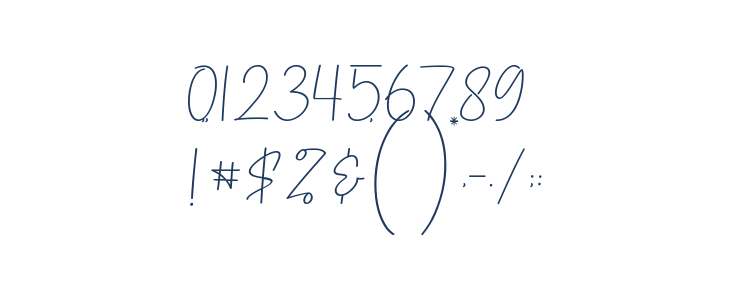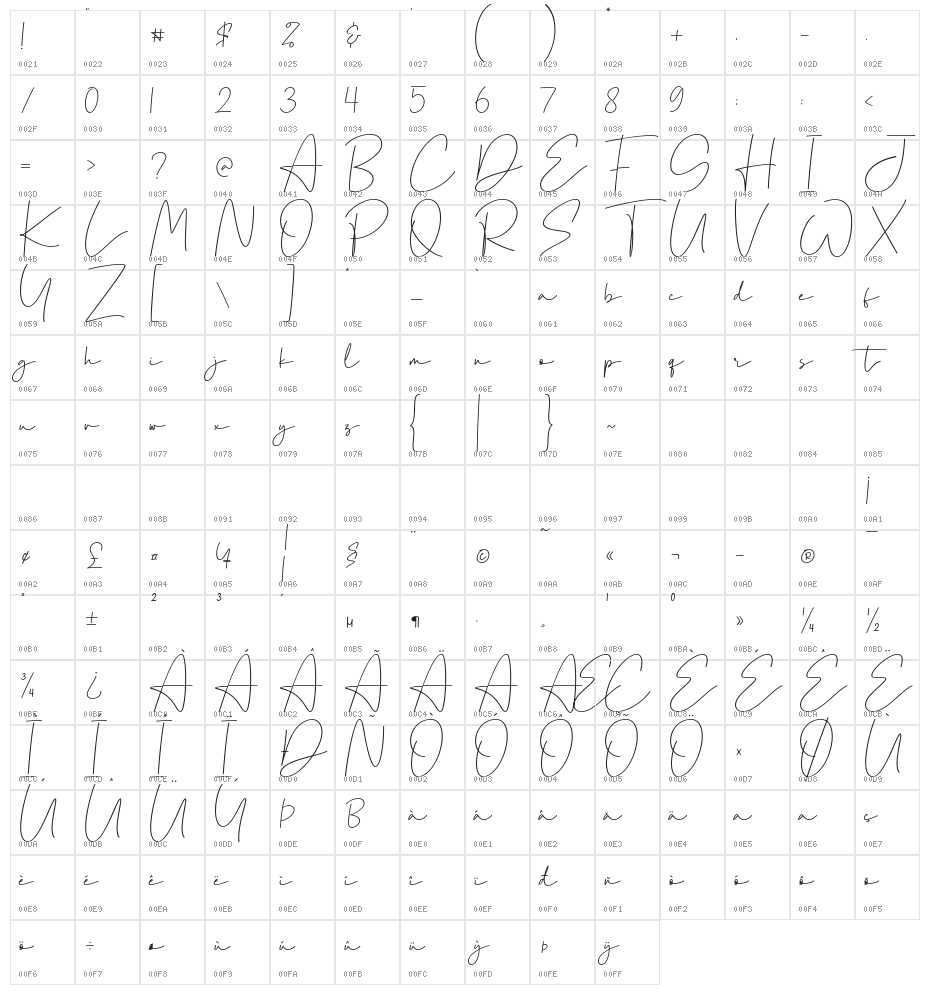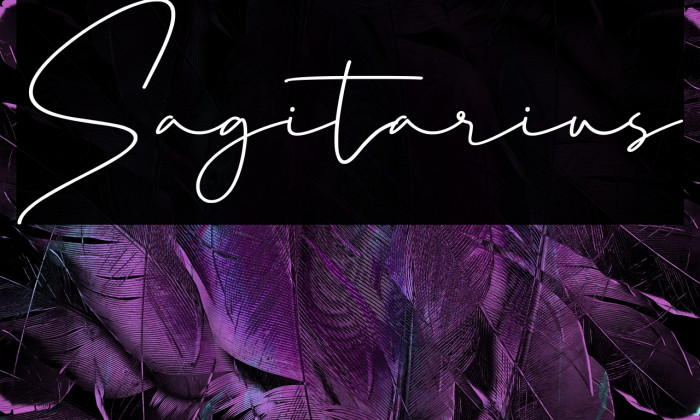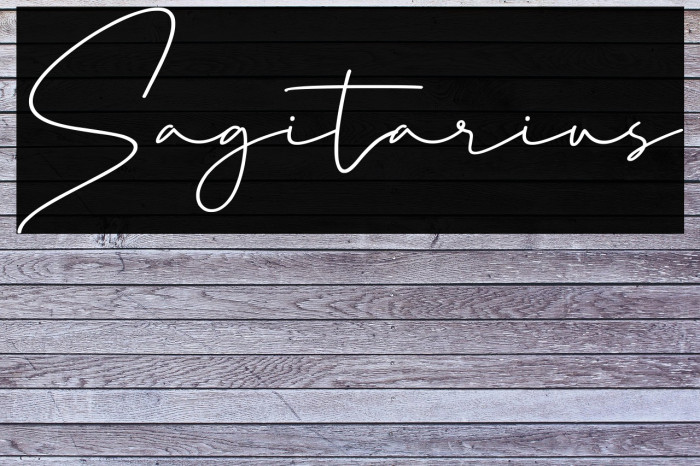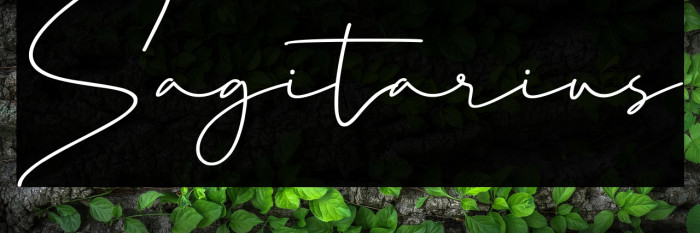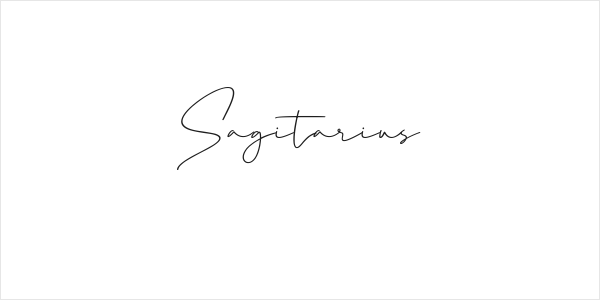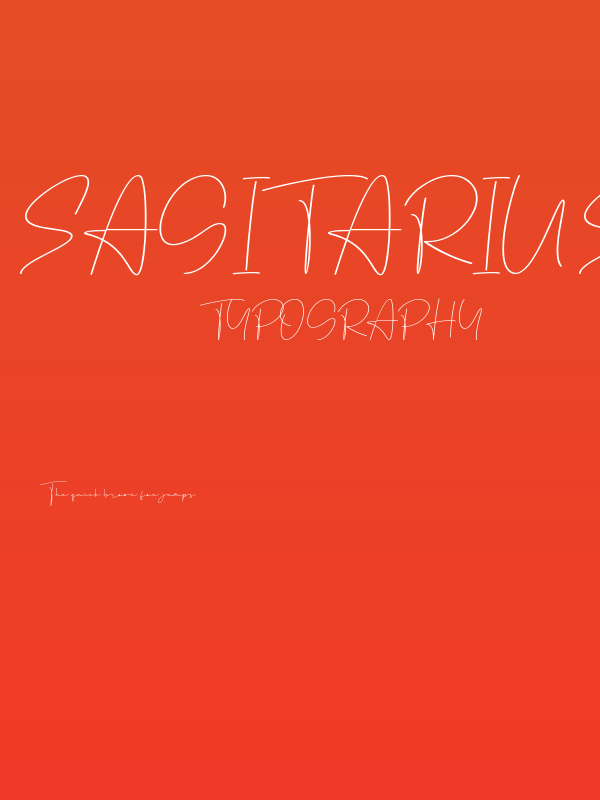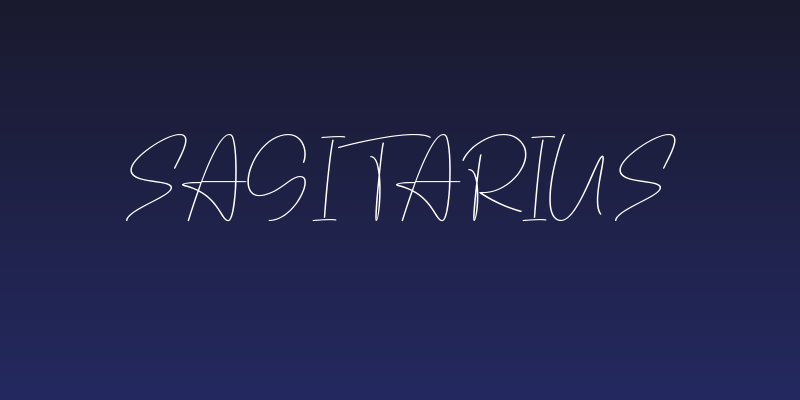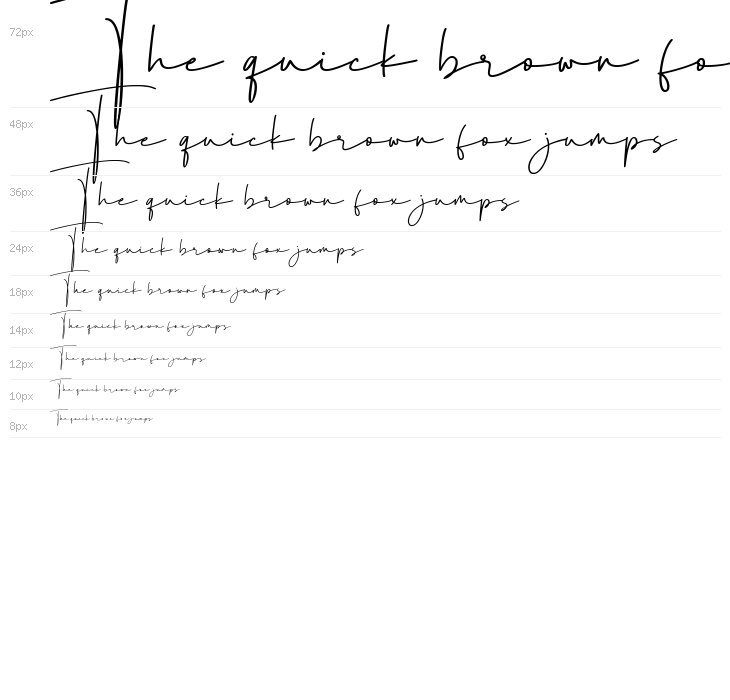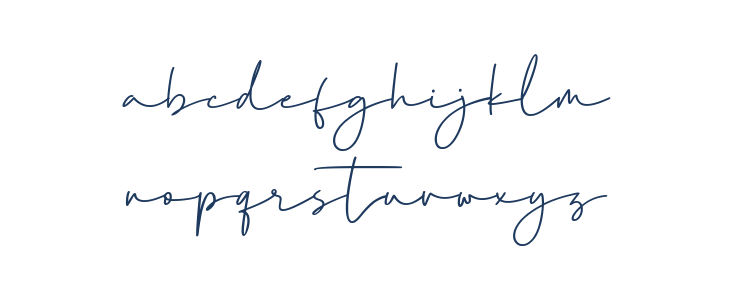
Sagitarius Font
Sagitarius Description
This font features a delicate and elegant handwritten style, characterized by its fluid and continuous strokes. The uppercase letters are tall and slender, with a slight slant that adds a touch of sophistication. The lowercase letters are more connected, enhancing the script-like appearance. Numbers and special characters maintain the same graceful flow, making the font versatile for various uses. The overall design exudes a sense of modern elegance, perfect for projects that require a personal and stylish touch.
| Use Case | Logos, Invitations, Social Media Graphics |
| Proposed Projects | Ideal for wedding invitations, personal branding, elegant stationery, and social media graphics. |